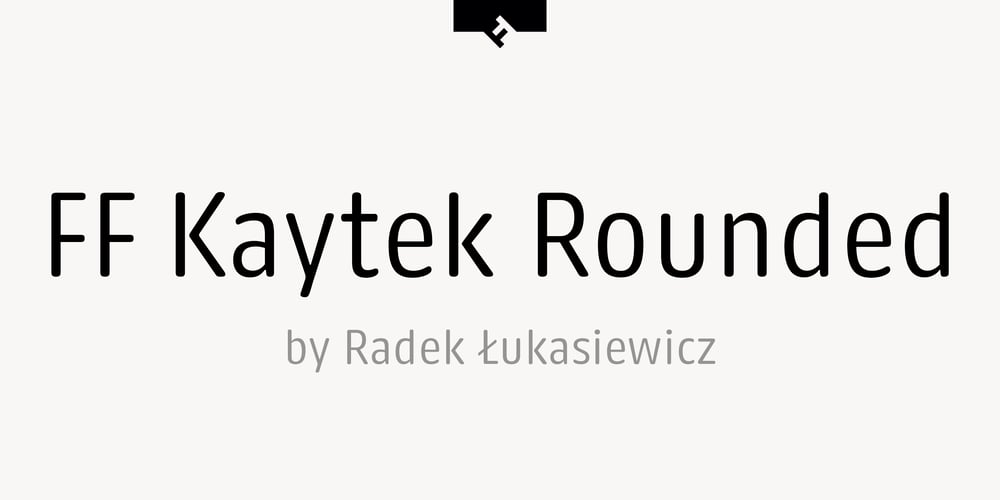
FF Kaytek Rounded Font Family was designed by Radek Łukasiewicz and published by FontFont. FF Kaytek Rounded contains 7 styles and family package options. Kaytek™ Rounded completes the Kaytek typeface family with seven carefully rounded weights. Every style of the typeface takes up exactly the same amount of space, thanks to the careful creation by Radek Łukasiewicz. This means designers can switch between styles without the text being reflowed, making it particularly useful in magazines, where space might be limited, and also on the internet, where hover links appear in a different style. Kaytek Rounded comes in seven weights, from Thin to Black. It pairs also with Kaytek Sans, Kaytek Slab, and Kaytek Headline.